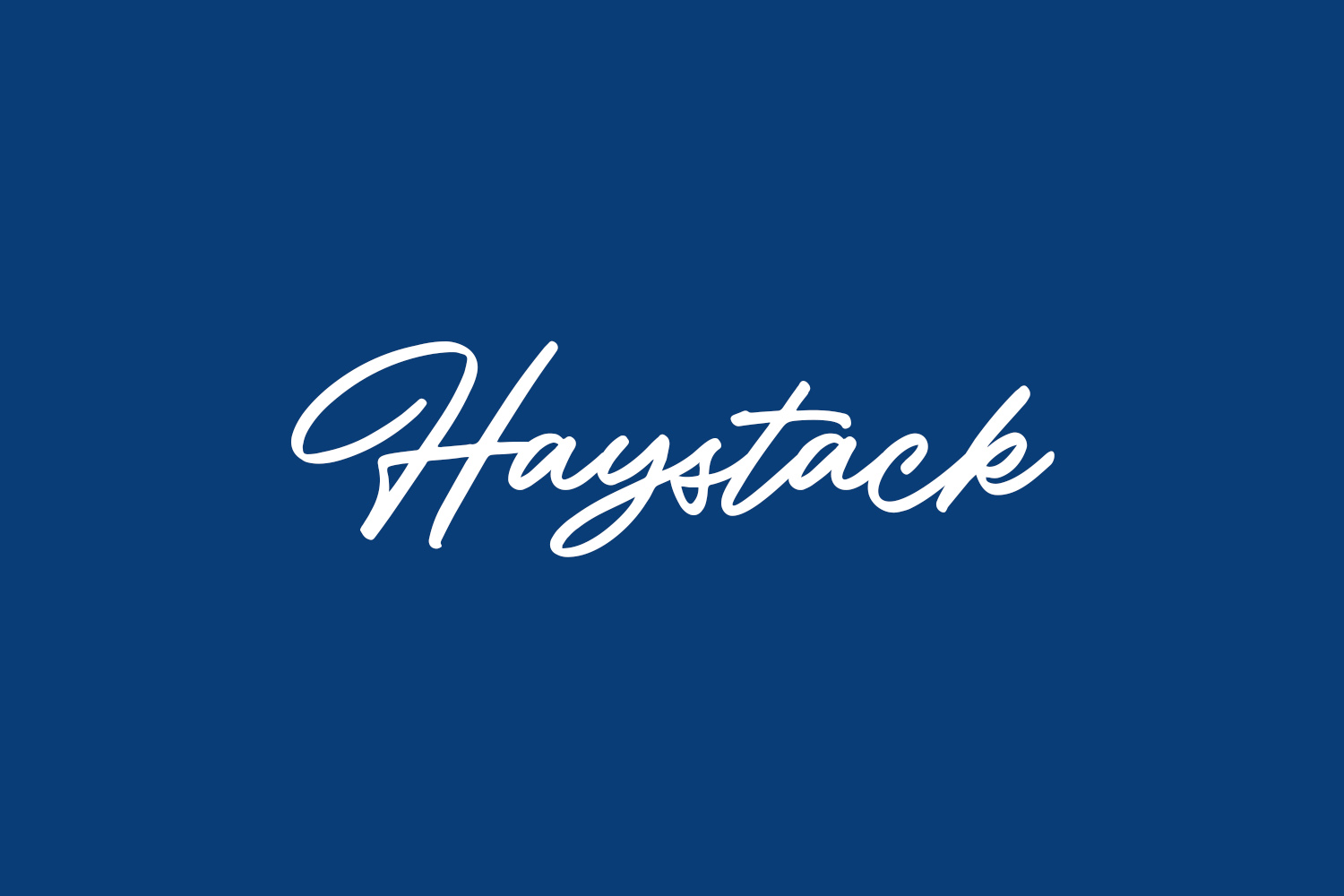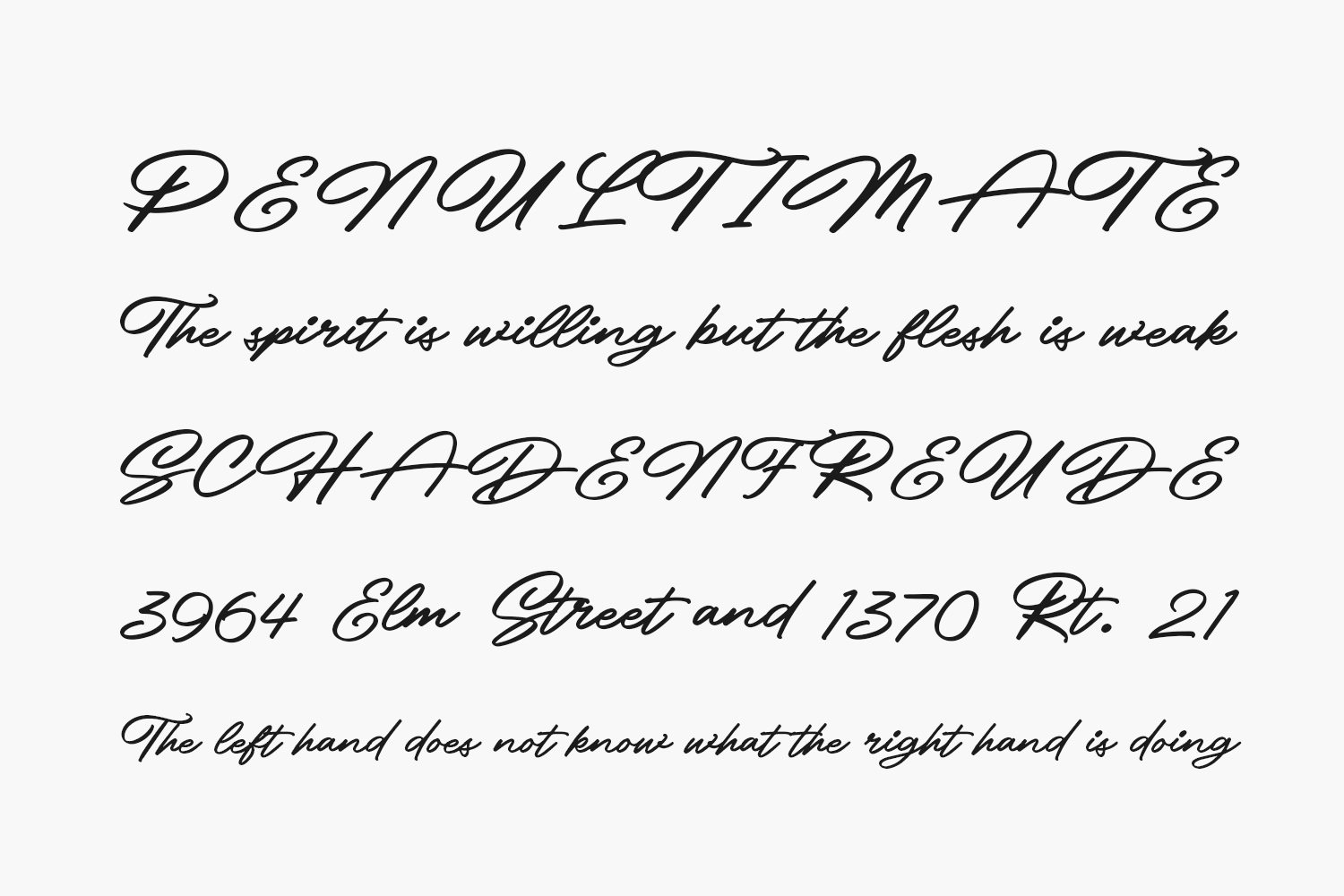
Haystack Free Font is a beautiful and refined script font. It has a classy, elegant and modern look that can be used for logos, branding, invitations, stationery, wedding designs, social media posts, and much more. Haystack Free Font was designed by Letterhend Studio and is free for personal use only. Please purchase the full version for commercial use.